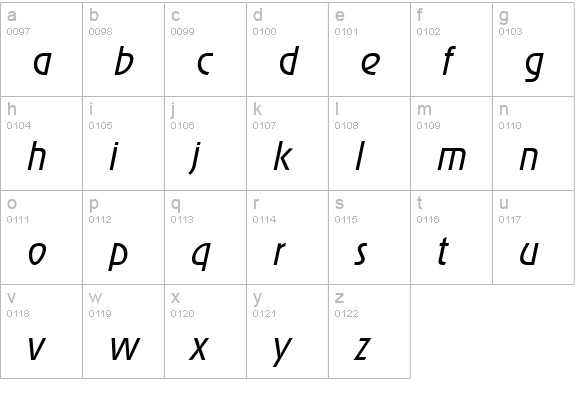
RevelLight Italic Font Details
RevelLight Italic is a distinctive, italic variant in the RevelLight typeface family \xE2\x80\x94 well suited to design and typography projects.
RevelLight Italic is a stunning and elegant font that will add a touch of sophistication and style to any design project. Its sleek and slanted letterforms exude a sense of modernity and grace, making it the perfect choice for a wide range of applications. This exquisite font features beautifully crafted italic letterforms that effortlessly flow from one character to another, creating a seamless and harmonious visual composition. The gentle curves and delicate strokes of RevelLight Italic evoke a sense of fluidity and movement, captivating the eye and drawing the reader in. Whether you're designing a logo, creating a poster, or crafting a wedding invitation, RevelLight Italic will bring a refined and luxurious feel to your project. Its versatility allows it to be used in both formal and informal settings, making it a truly versatile typeface. The best part? RevelLight Italic is available for free! That's right, this exceptional font can be freely downloaded at FontsMarket.com, allowing you to enhance your designs without breaking the bank. Its availability ensures that designers of all skill levels can access and use this extraordinary font to elevate their creations. So why wait? Embrace the beauty and elegance of RevelLight Italic and make your designs stand out from the crowd. Download this remarkable font today and experience the magic it brings to your creative endeavors.